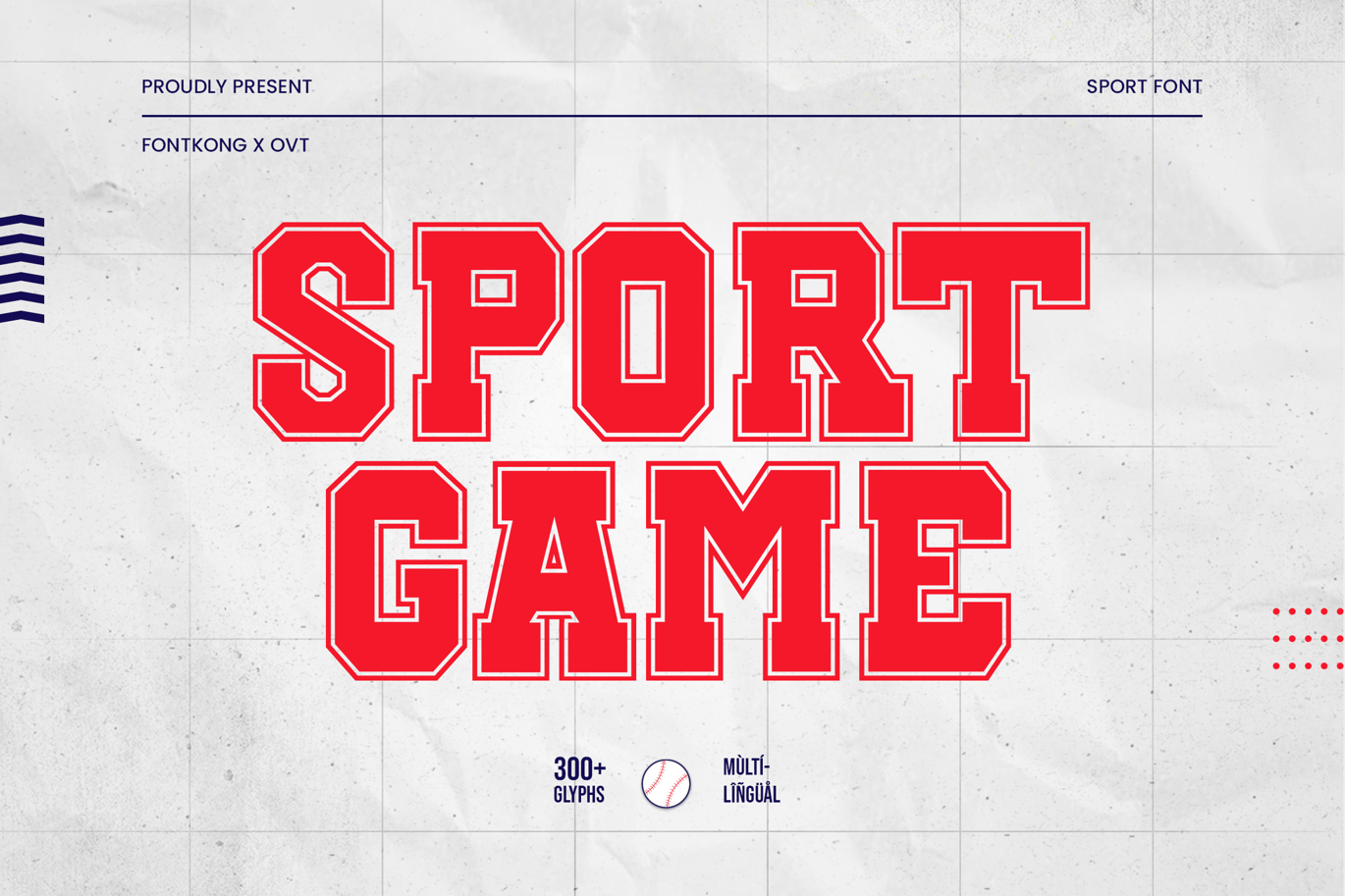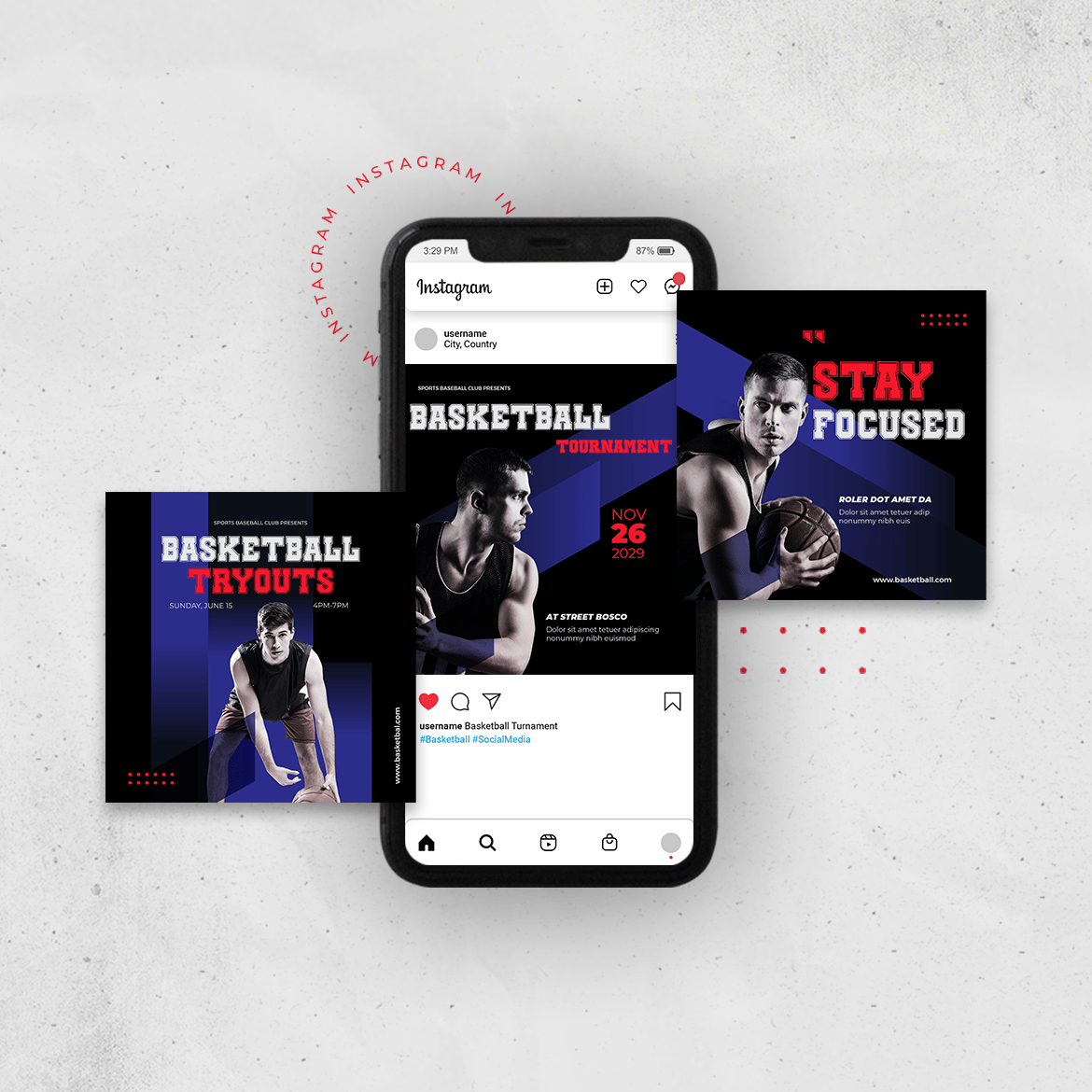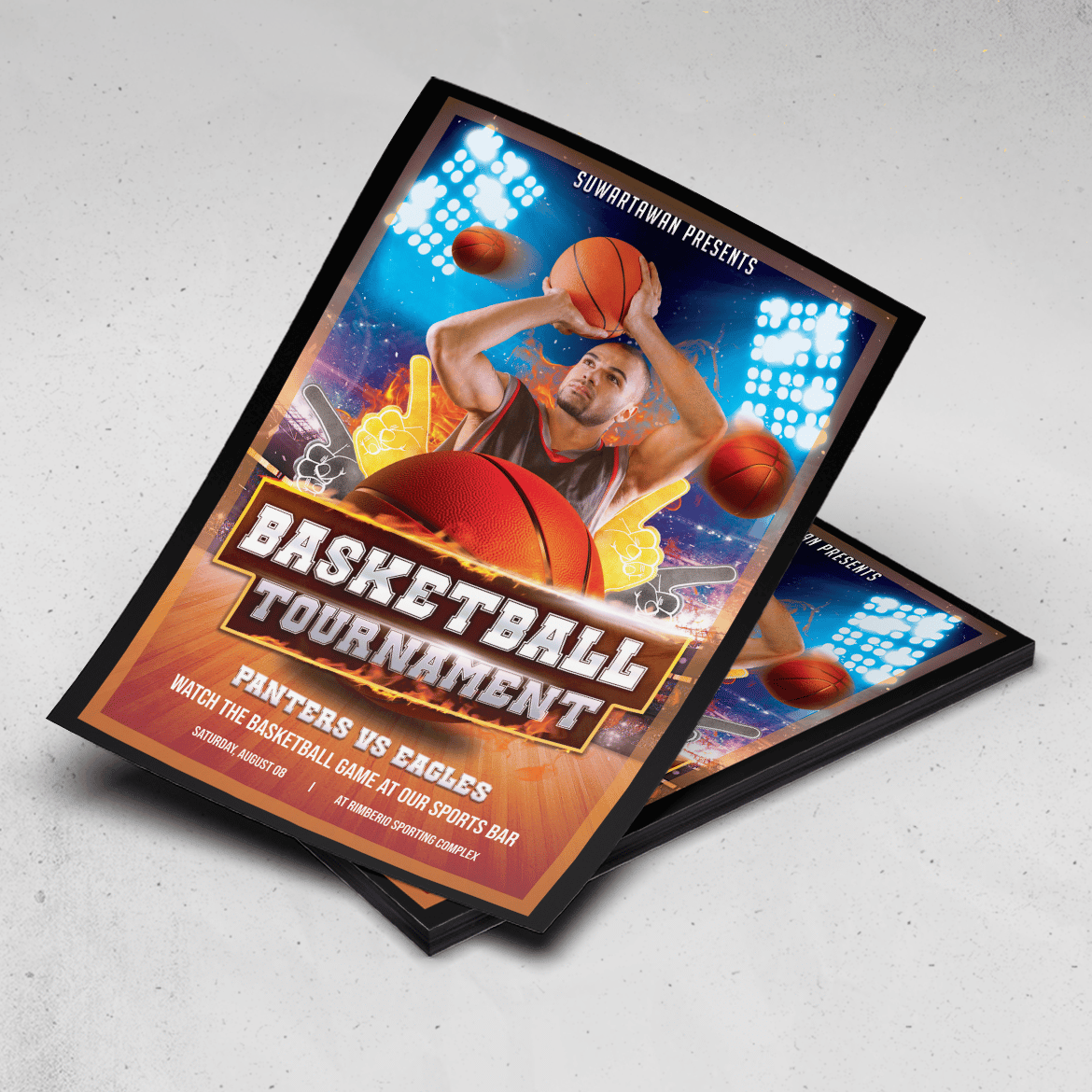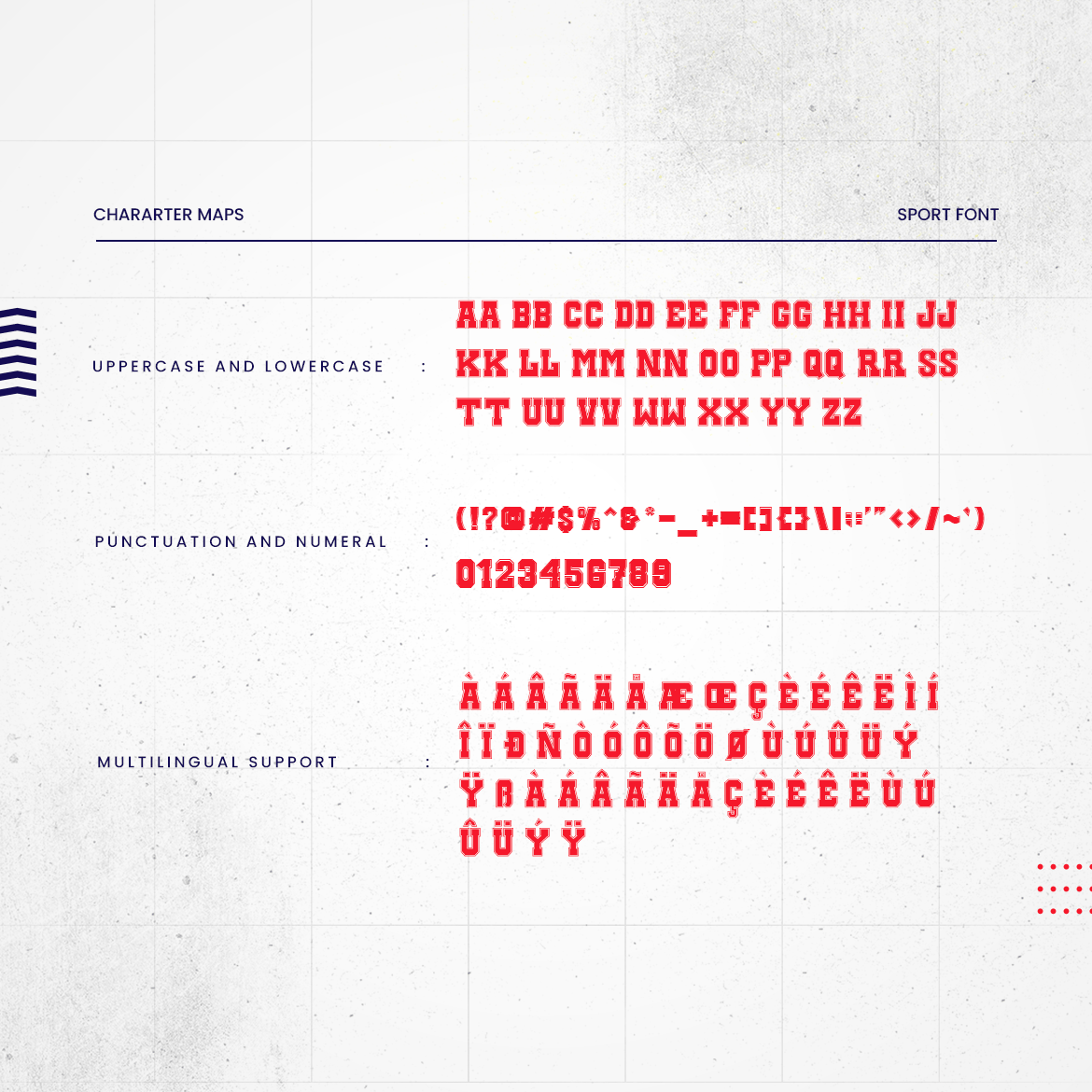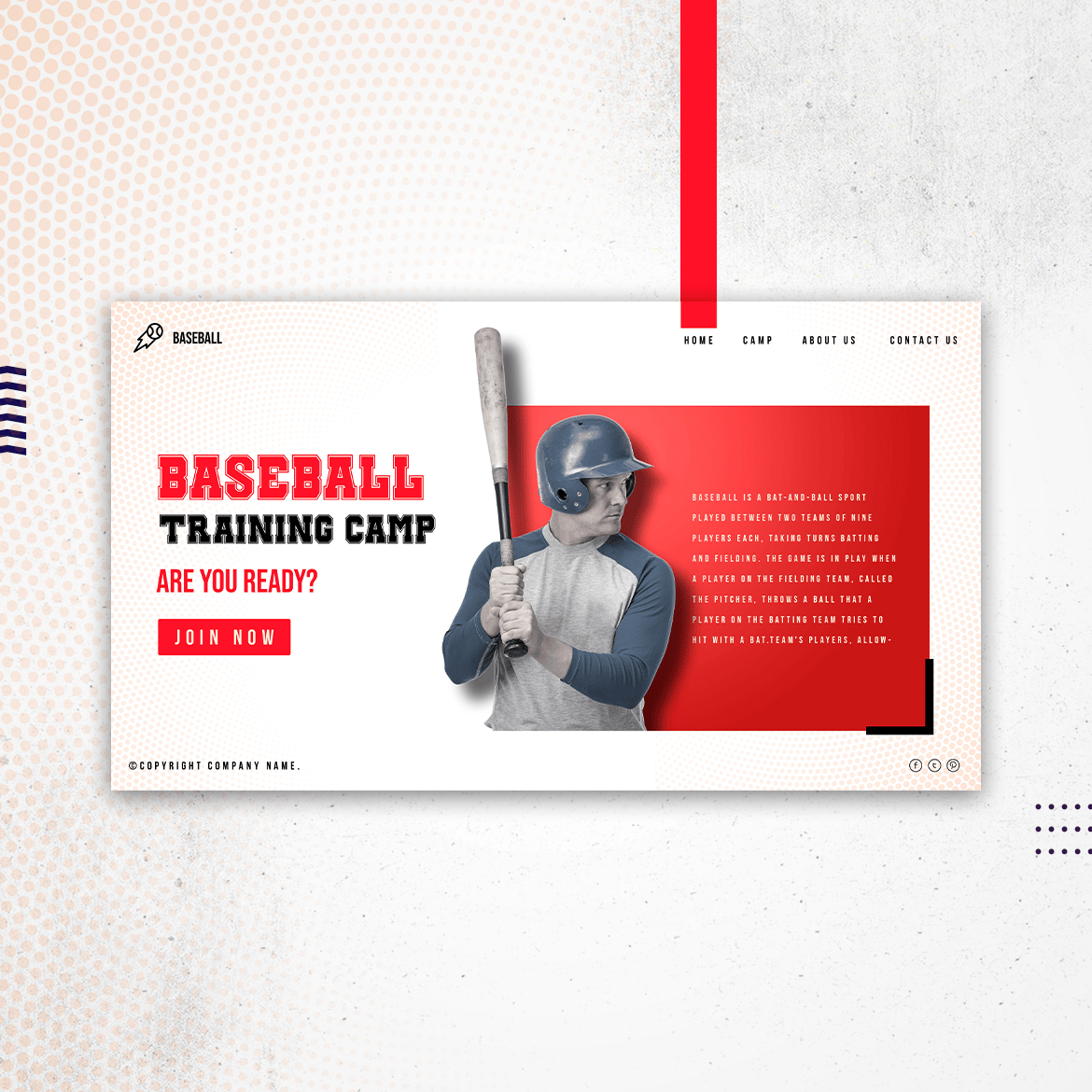
Sport Game – Sport Font
Introducing “Sport Game,” a dynamic sport font crafted for all your athletic design needs. Featuring bold and energetic letterforms, Sport Game is perfect for creating impactful designs that convey strength, speed, and competitiveness. Whether you’re designing for team jerseys, sports event posters, or athletic branding, this font ensures your message stands out with vigor.
Sport Game includes a full set of uppercase and lowercase letters, numerals, punctuation, and special characters, offering the flexibility to handle a wide variety of design projects. Its robust and versatile design makes it suitable for both digital and print media, bringing a professional and dynamic edge to your work.